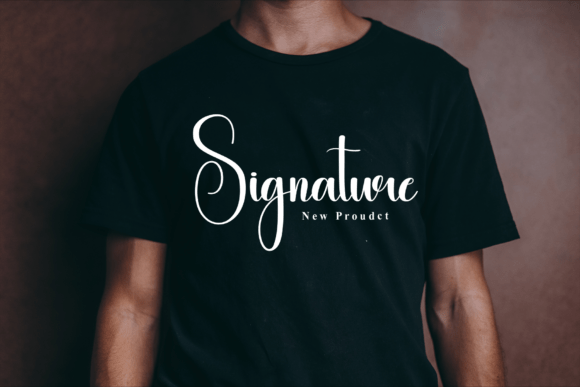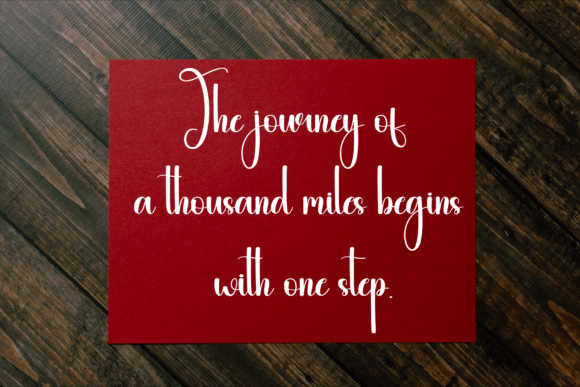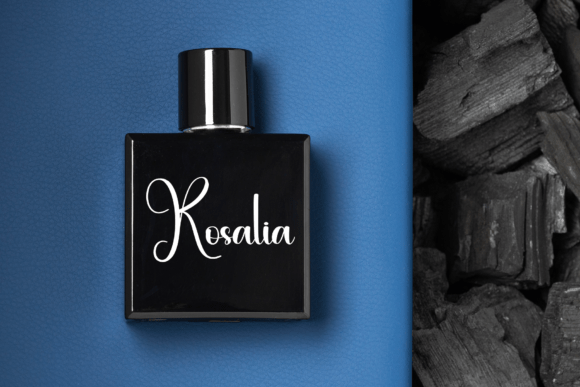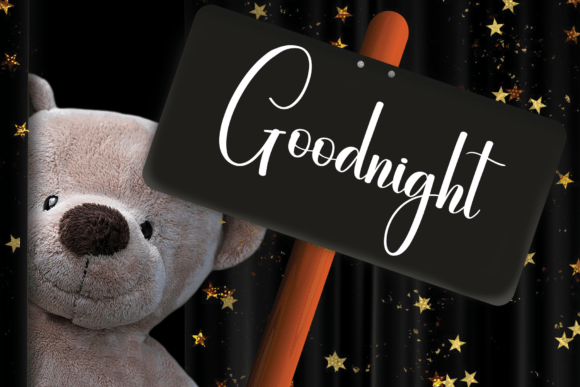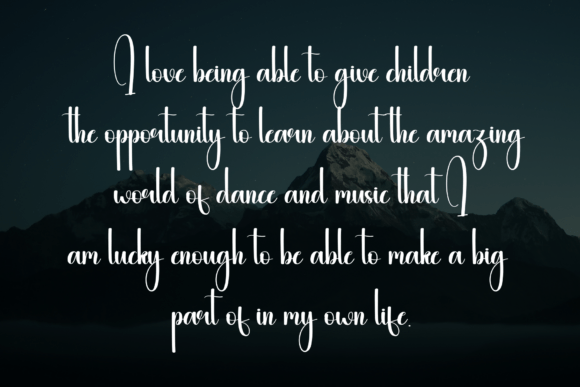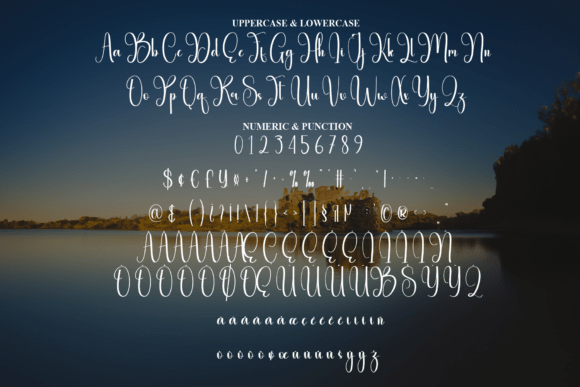
Discover the Magic of Enchanting Font: Elevate Your Designs with Elegance and Whimsy
In the world of typography, few fonts manage to strike a balance between modern sophistication and playful charm. Enchanting Font is one such gem that has captured the hearts of designers and crafters alike. This stylish handwritten script font is designed to bring a personal touch to any design, making it an ideal choice for logos, packaging, invitations, and more.
The Essence of Enchanting Font
Enchanting Font is a masterpiece of typographic design, blending fluid strokes and charming curves to create a truly unique and captivating typeface. Its modern elegance is perfectly balanced with a playful touch, making it versatile enough to suit a wide range of design projects. Whether you’re looking to add a touch of sophistication to a luxury brand or a dash of whimsy to a creative project, Enchanting Font is the perfect choice.
Key Features of Enchanting Font
- Fluid Strokes: Enchanting Font features fluid strokes that give it a natural, handwritten feel. This makes it perfect for designs that require a personal touch.
- Charming Curves: The font’s charming curves add a touch of elegance and sophistication to any design.
- Modern Elegance: Enchanting Font’s modern design ensures that it looks fresh and contemporary, making it suitable for a wide range of design projects.
- Playful Touch: The font’s playful touch adds a dash of whimsy to any design, making it perfect for creative projects.
Uses of Enchanting Font
Enchanting Font is a versatile typeface that can be used in a variety of design projects, including:
- Logos: Enchanting Font is perfect for creating unique and memorable logos that require a personal touch.
- Packaging: The font’s elegant and sophisticated design makes it ideal for packaging designs that require a touch of luxury.
- Invitations: Enchanting Font is a popular choice for invitations, adding a touch of whimsy and elegance to any event.
- Branding: The font’s modern and playful design makes it perfect for branding projects that require a unique and captivating typeface.
Benefits of Using Enchanting Font
Using Enchanting Font in your design projects offers a range of benefits, including:
- Unique and Memorable Designs: Enchanting Font helps create unique and memorable designs that stand out from the crowd.
- Personal Touch: The font’s handwritten feel adds a personal touch to any design, making it perfect for projects that require a human touch.
- Elegance and Sophistication: Enchanting Font’s elegant and sophisticated design adds a touch of luxury to any project.
- Versatility: The font’s versatility makes it suitable for a wide range of design projects, from logos and packaging to invitations and branding.
Tips for Using Enchanting Font
To get the most out of Enchanting Font, here are a few tips to keep in mind:
- Use it Sparingly: Enchanting Font is a statement font, so use it sparingly to avoid overwhelming your design.
- Pair it with Other Fonts: The font pairs well with other fonts, so experiment with different combinations to find the perfect match.
- Experiment with Colors: Enchanting Font looks great in a range of colors, so don’t be afraid to experiment and find the perfect hue for your design.
In conclusion, Enchanting Font is a stylish and versatile typeface that is perfect for designers and crafters looking to add a touch of elegance and whimsy to their designs. Its fluid strokes, charming curves, and modern elegance make it an ideal choice for a wide range of design projects. With its unique and memorable designs, personal touch, and versatility, Enchanting Font is sure to become a favorite in your design arsenal.